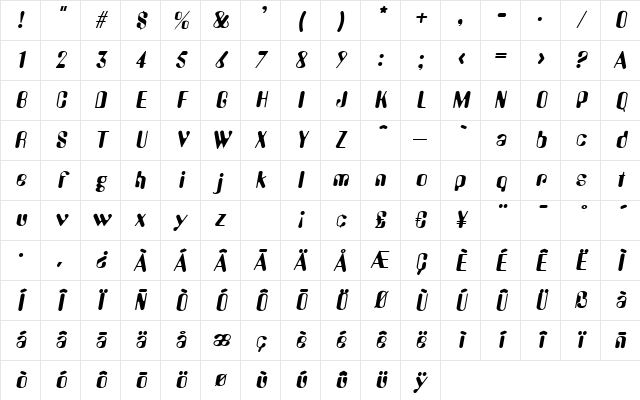
Complete Deco-A770 Italic glyph index. Displaying only characters natively supported by Deco-A770 Italic font.
Deco-A770 is a composed and adaptable typeface that performs quietly and consistently across a wide range of design contexts. The slanted form adds forward momentum and visual energy.